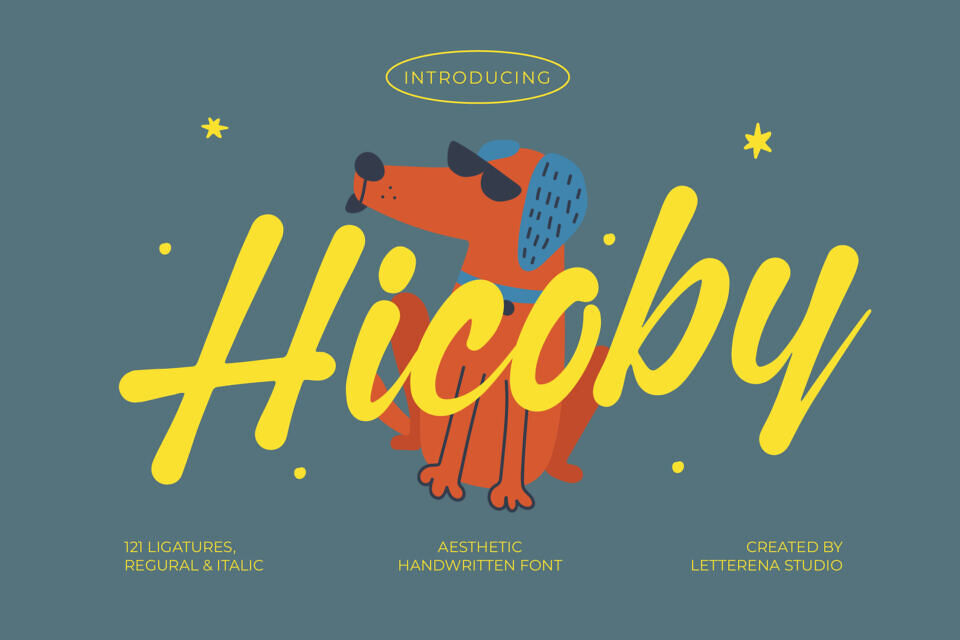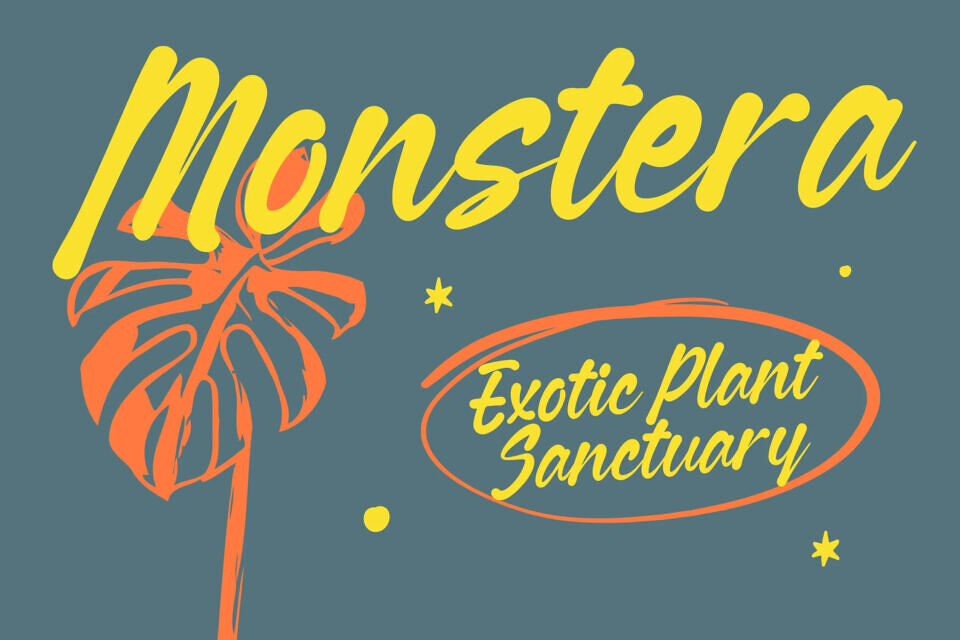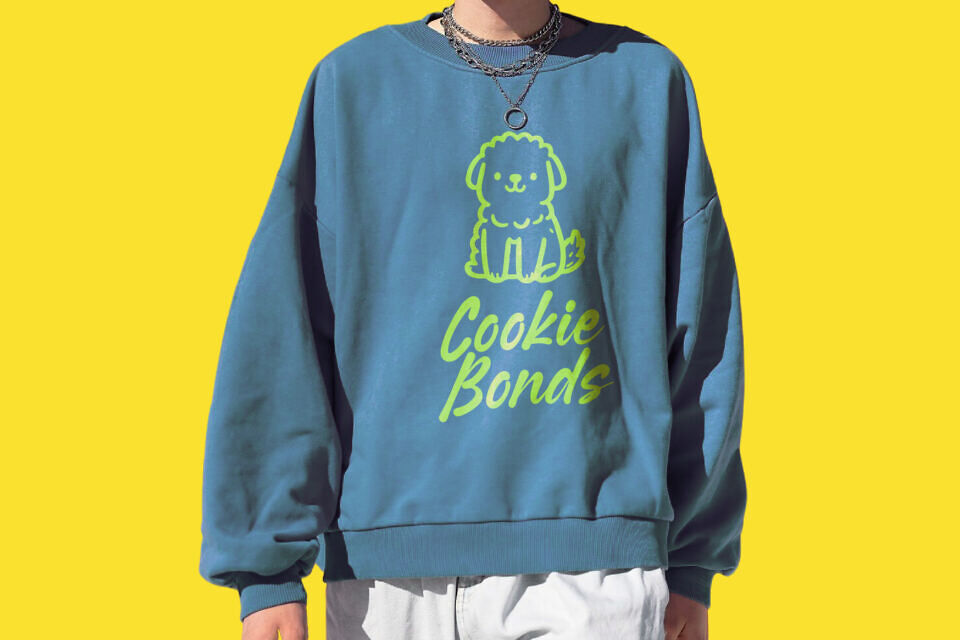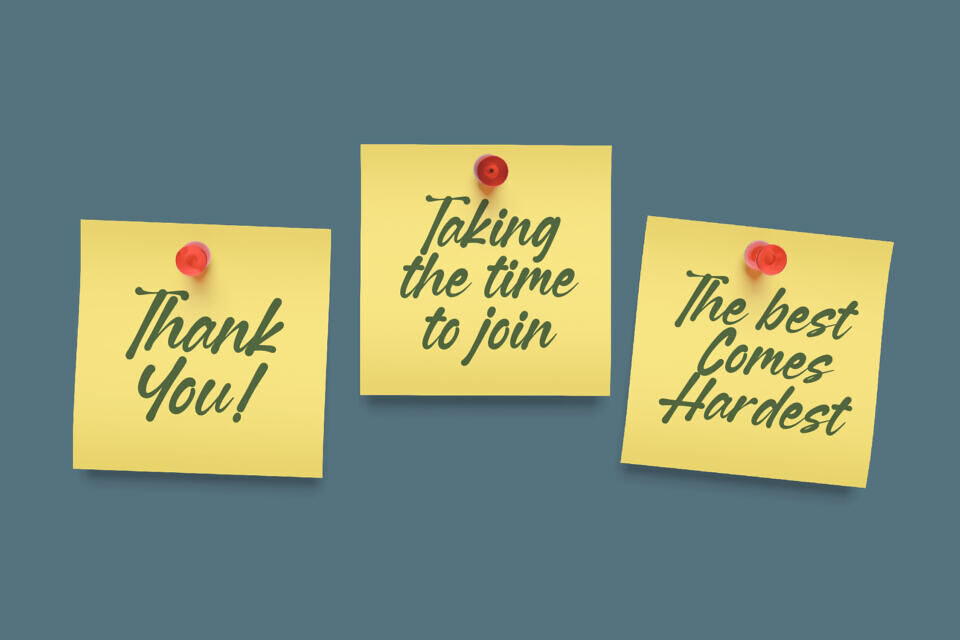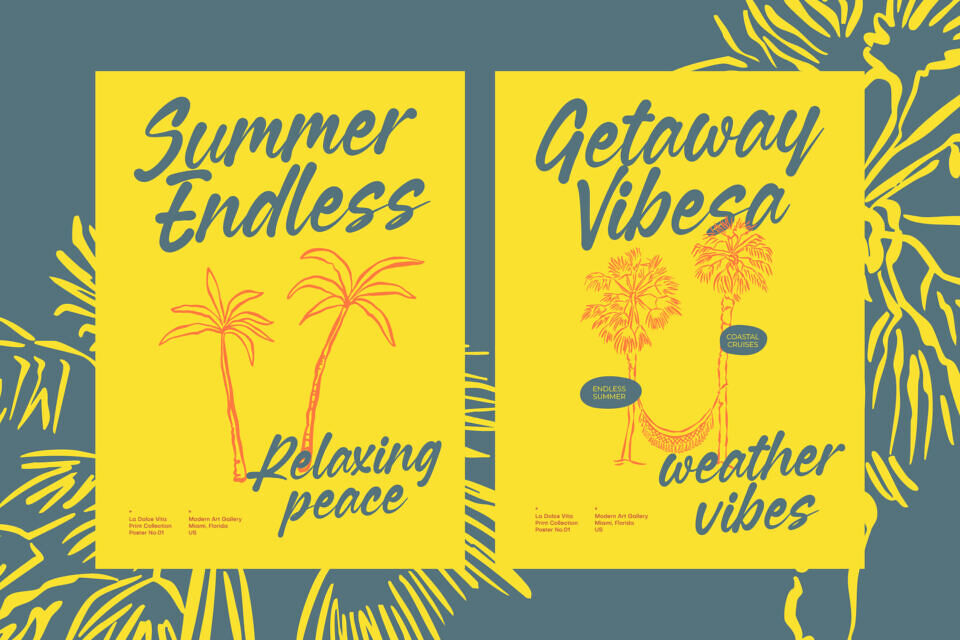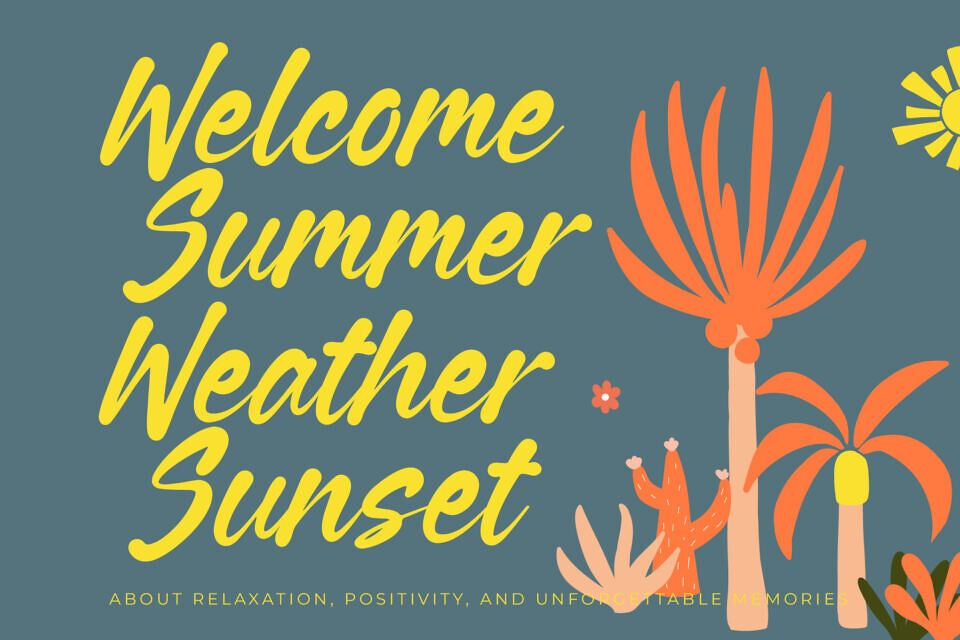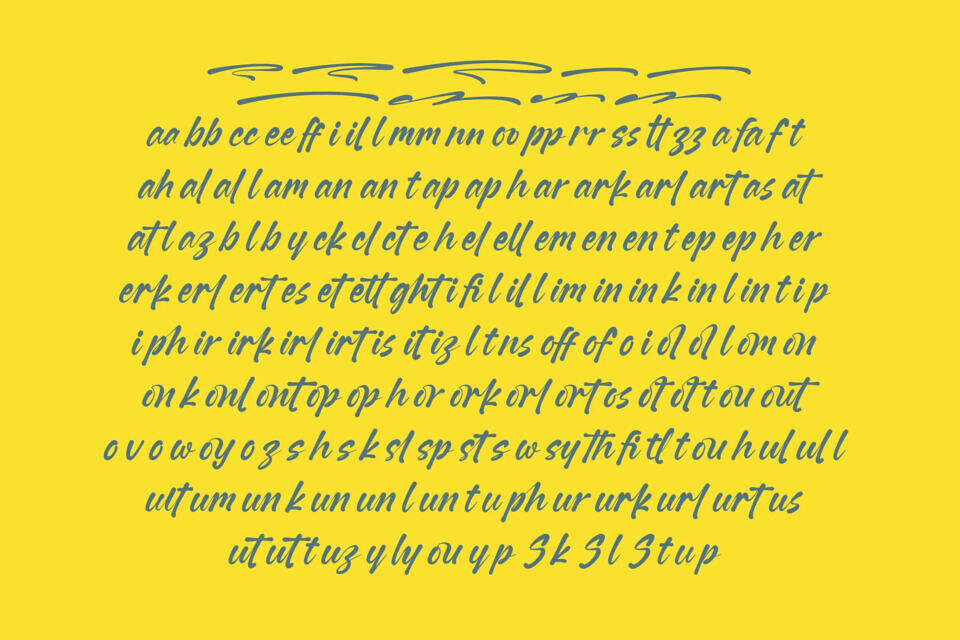
Hicoby is an Aesthetic Handwritten Font from Letterena, suitable for any projects such as: logos, branding projects, homeware designs, product packaging, mugs, quotes, posters, shopping bags, t-shirts, book covers, name card, invitation cards, greeting cards, label, photography, watermark, special events, and all your other luxury and beautiful projects that need a Luxury Script taste.